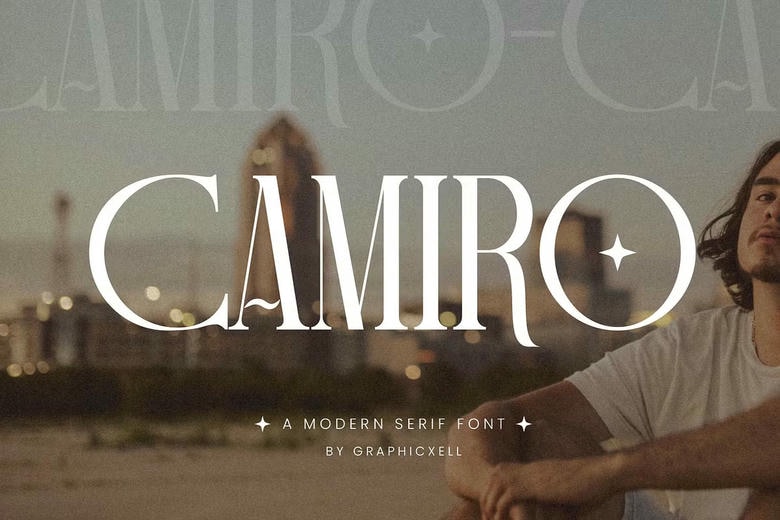
Camiro Font
Camiro Elegant Serif Font Typeface is designed based on the famous minimalist logo suitable for creating templates, brochures, videos, advertising branding, logos, invitation, layout design, elegant crafting, beauty design, others.
Camiro Elegant Serif Font